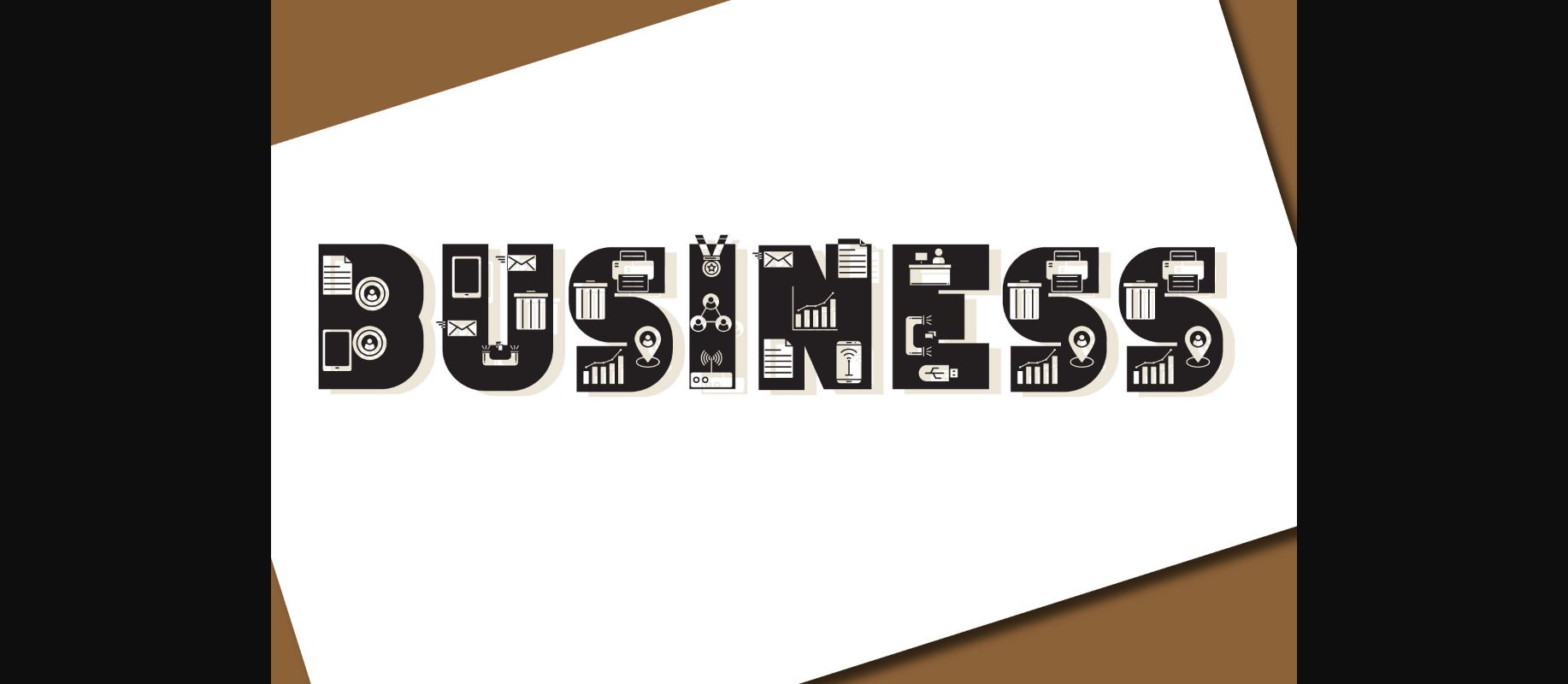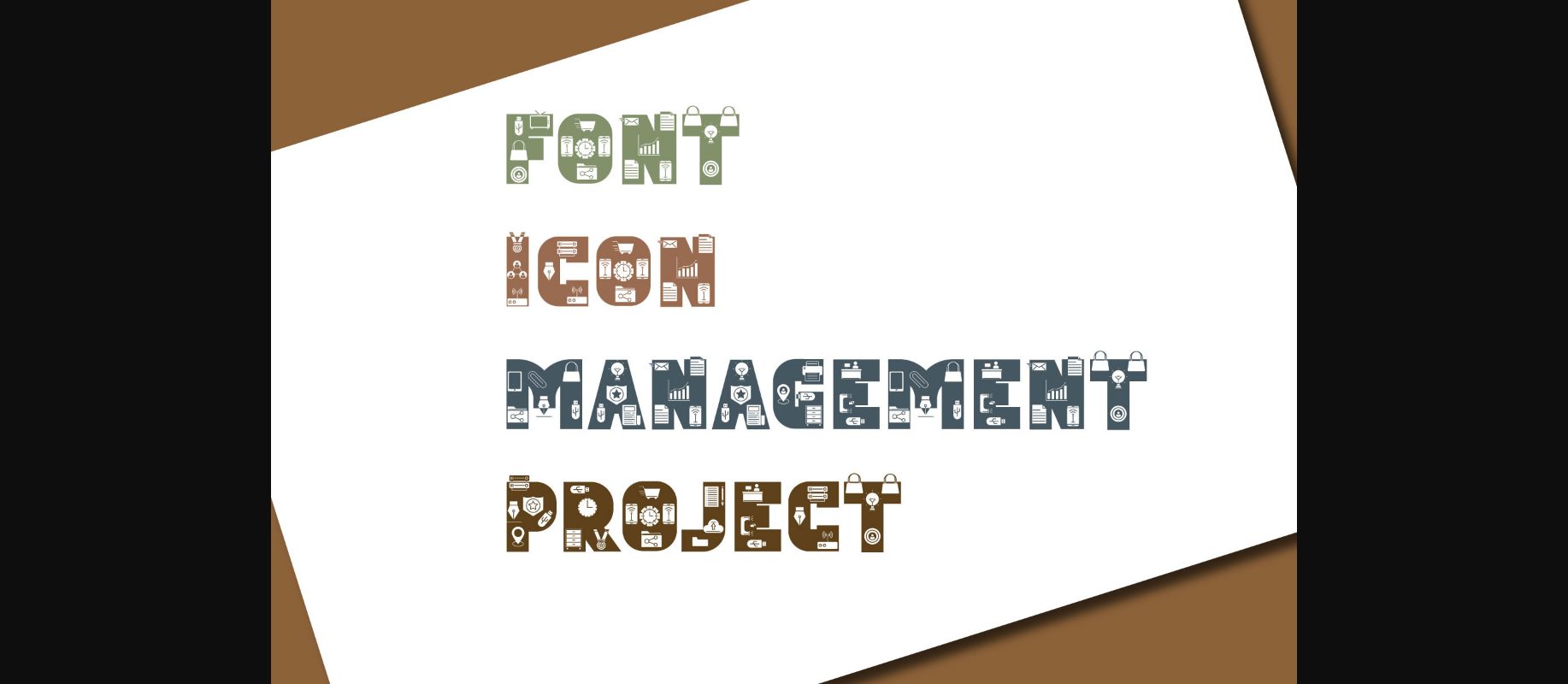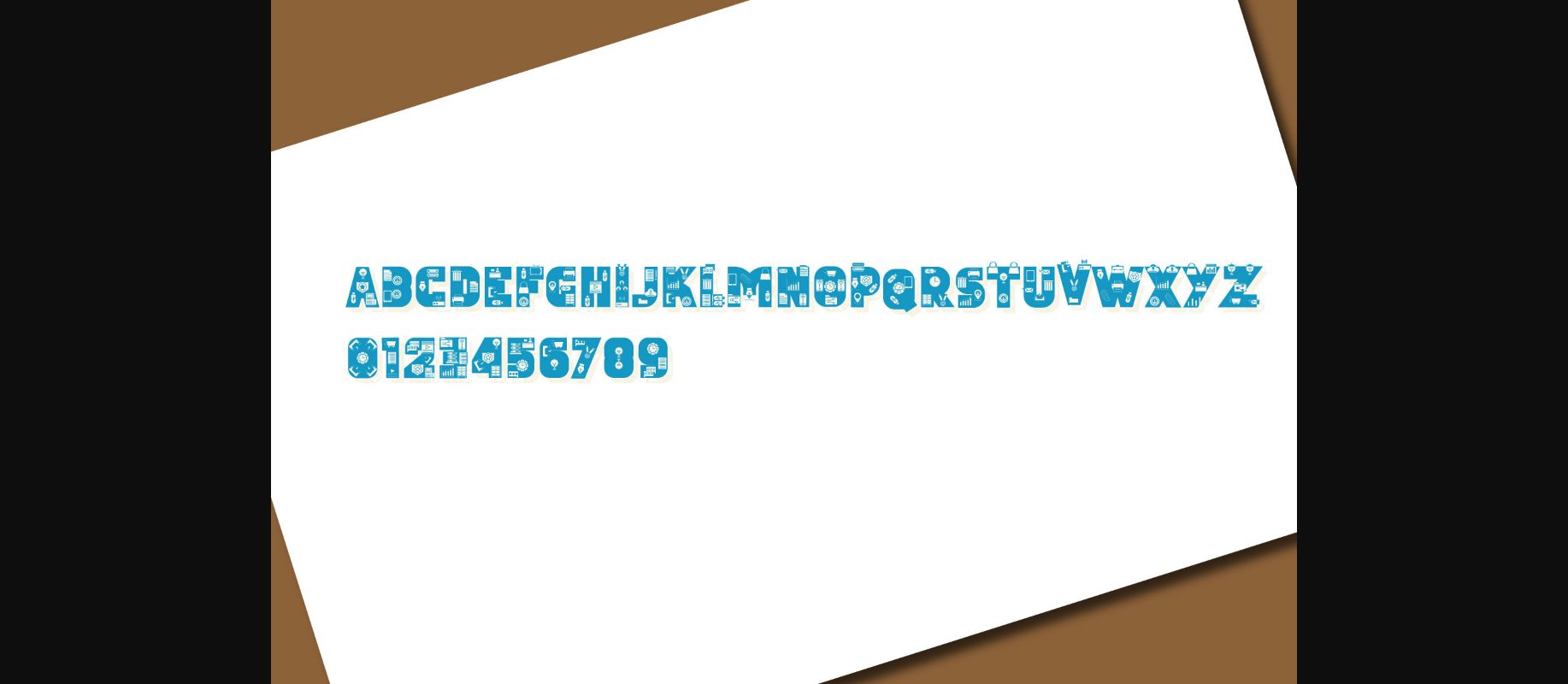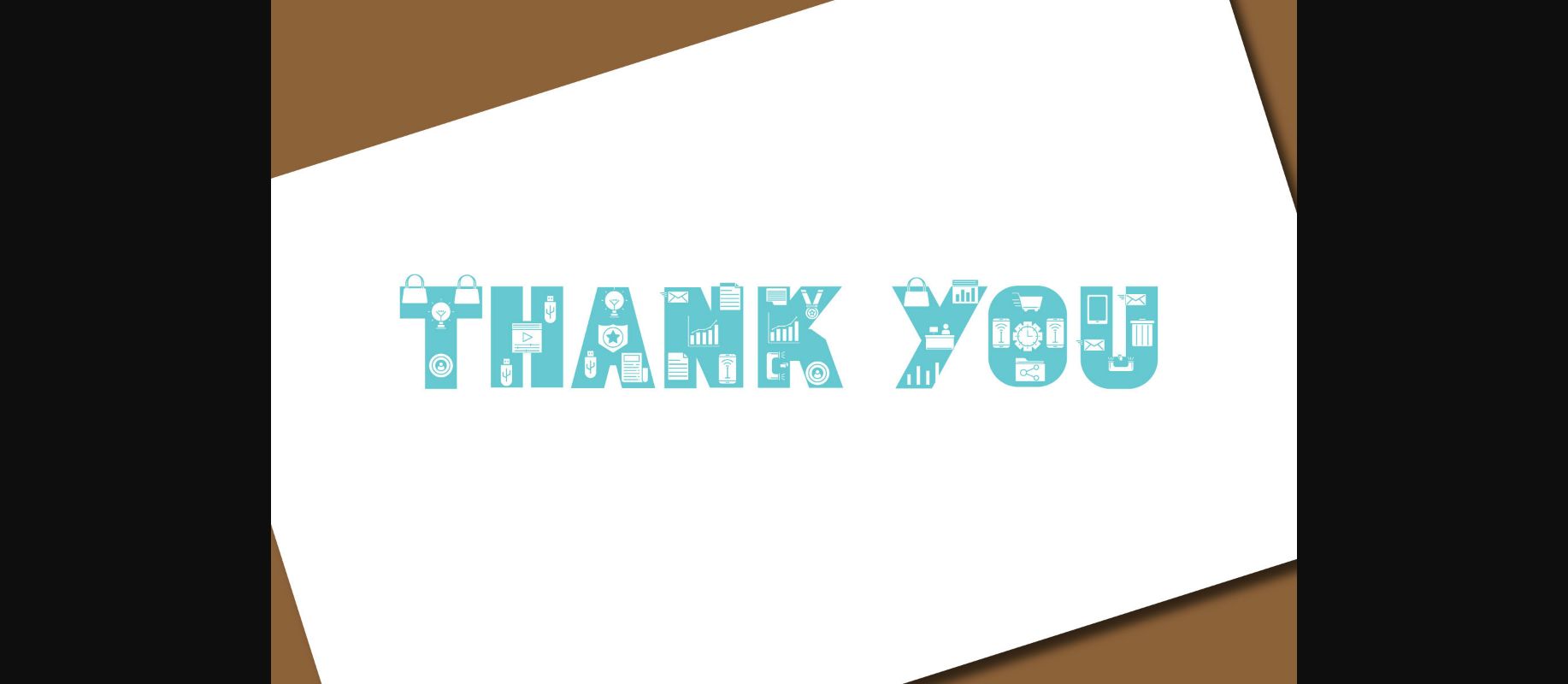
About Business Font
Business is a cool and interestingly designed decorative font. This font is ideal for writing web designs, business cards, or pretty much anything else that requires a unique touch.